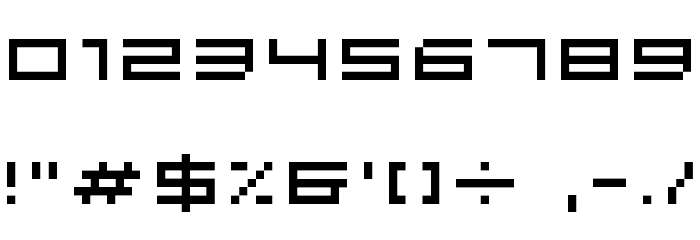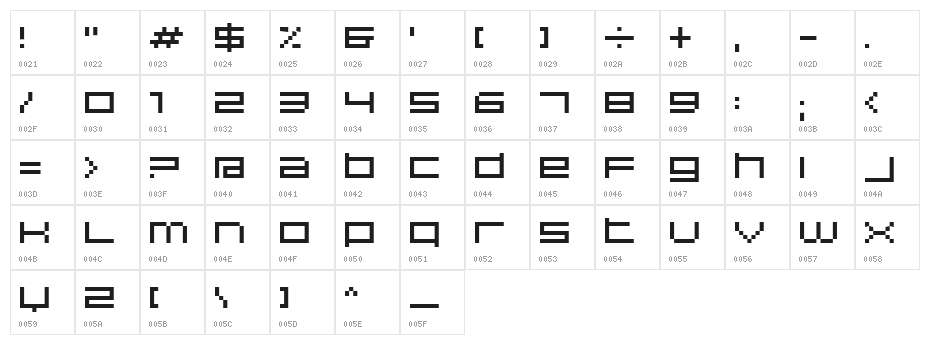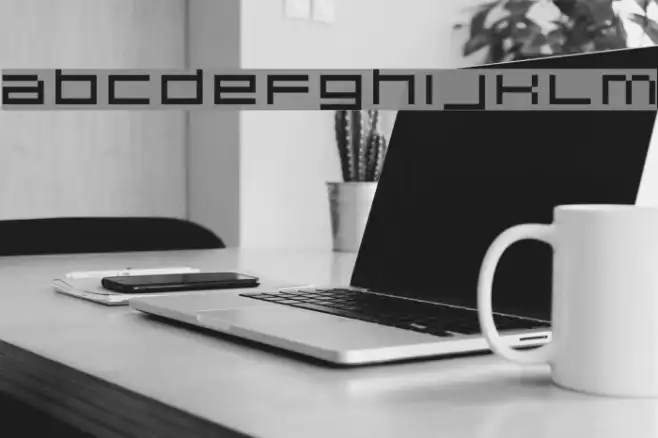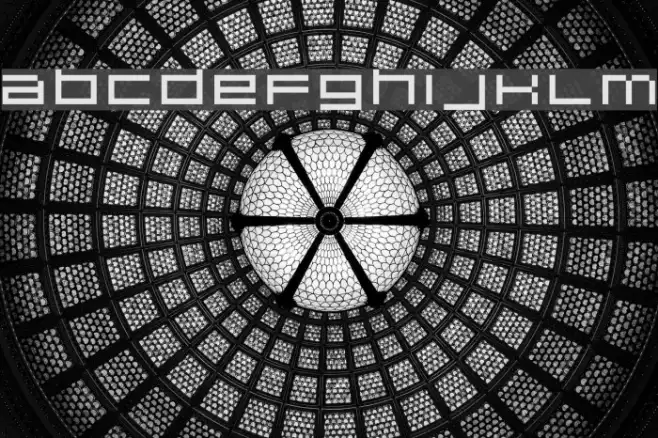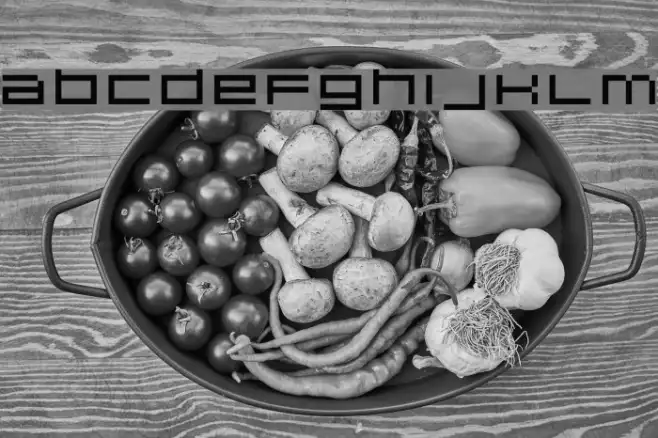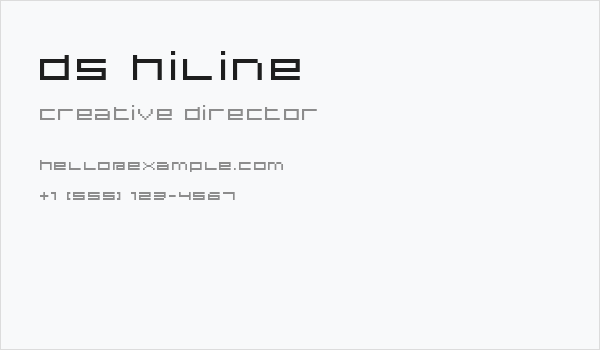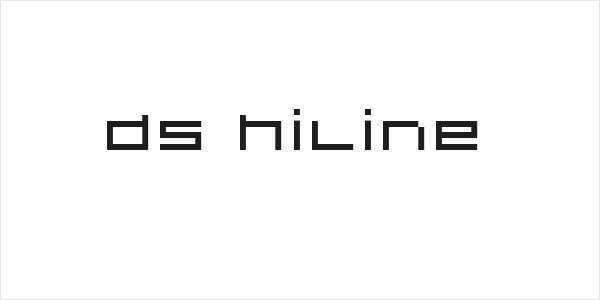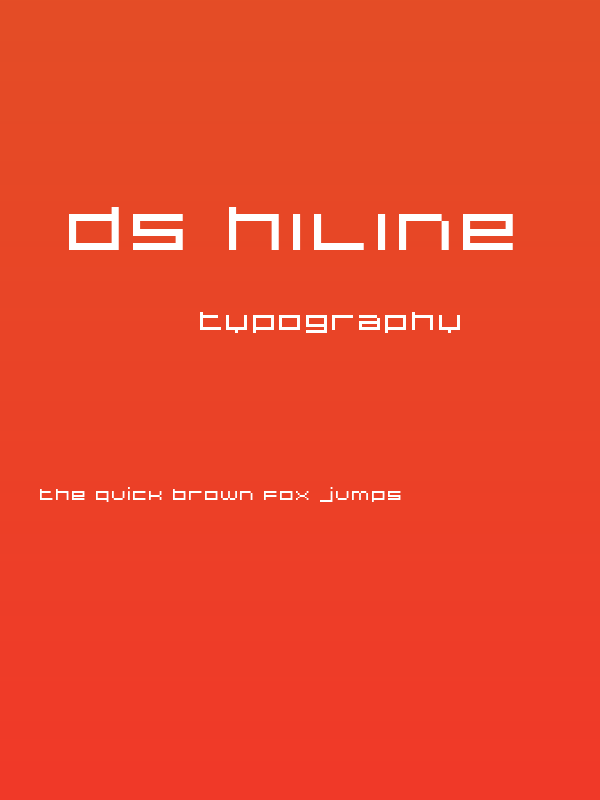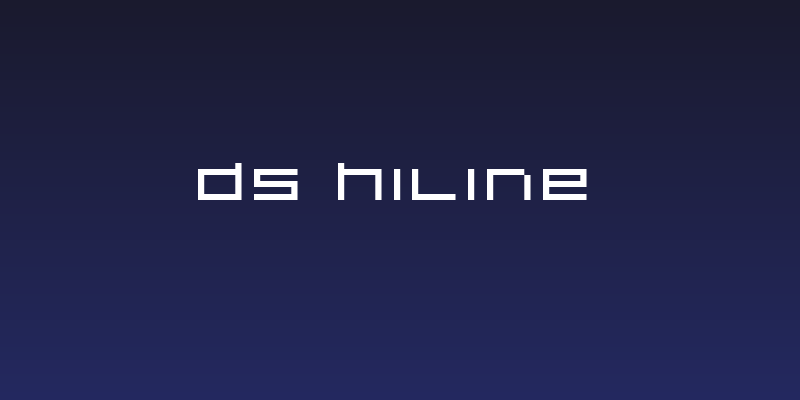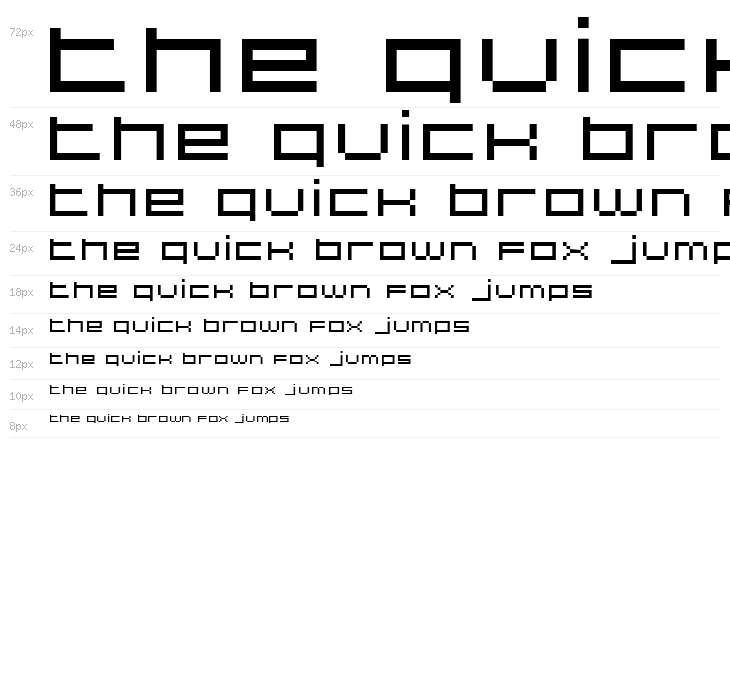
DS Hiline Font
DS Hiline Description
This font features a geometric, pixelated design that is reminiscent of early digital displays. Each character is constructed with a grid-like precision, giving it a distinctly modern and technological feel. The uniformity in line thickness and the square-like shapes of the letters contribute to its digital aesthetic. The uppercase and lowercase letters maintain a consistent style, with minimal curves and a focus on straight lines and right angles. Numbers and special characters follow the same design principles, ensuring a cohesive look across all glyphs. This font is ideal for projects that require a futuristic or retro digital appearance.
| Use Case | Logos, Headlines, Digital displays |
| Proposed Projects | Ideal for digital art, video game design, tech branding, and retro-themed projects. |